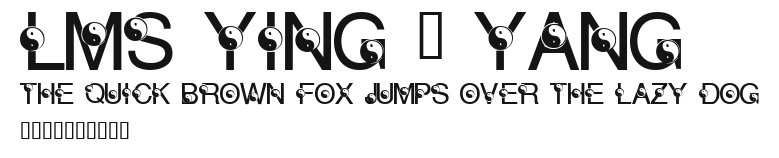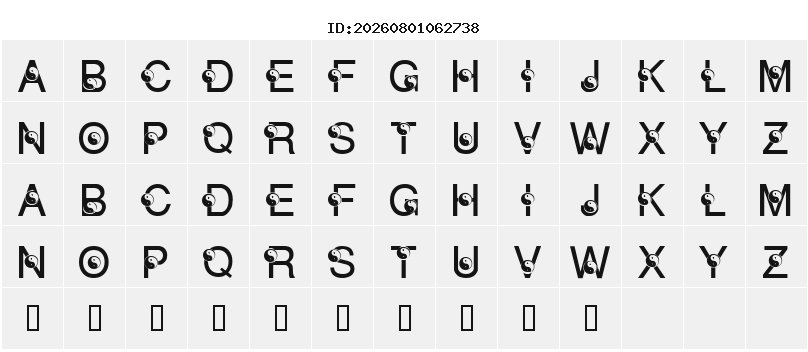
• Font Name: LMS Ying & Yang
About LMS Ying & Yang.ttf
LMS Ying & Yang.ttf is a modern, elegant sans-serif font designed for ultimate readability and visual harmony. Perfect for branding, headlines, web design, and print materials.